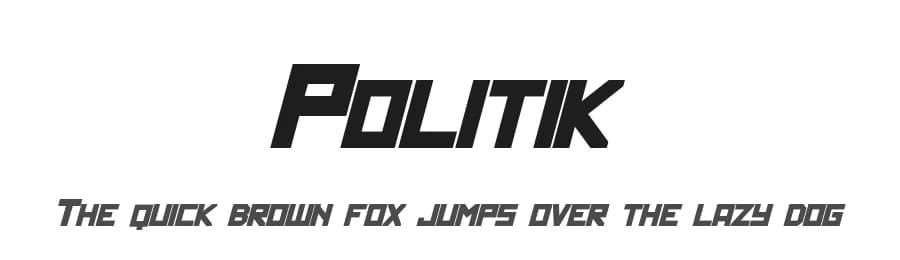
About Politik Font
Politik is a thick, simplistic, squared-off face that is heavily influenced by communist Cold-War propaganda imagery. Includes full alphabet, extended punctuation, euro. Comes in regular, bold, italic, and bold-italic-styles.
Politik Font